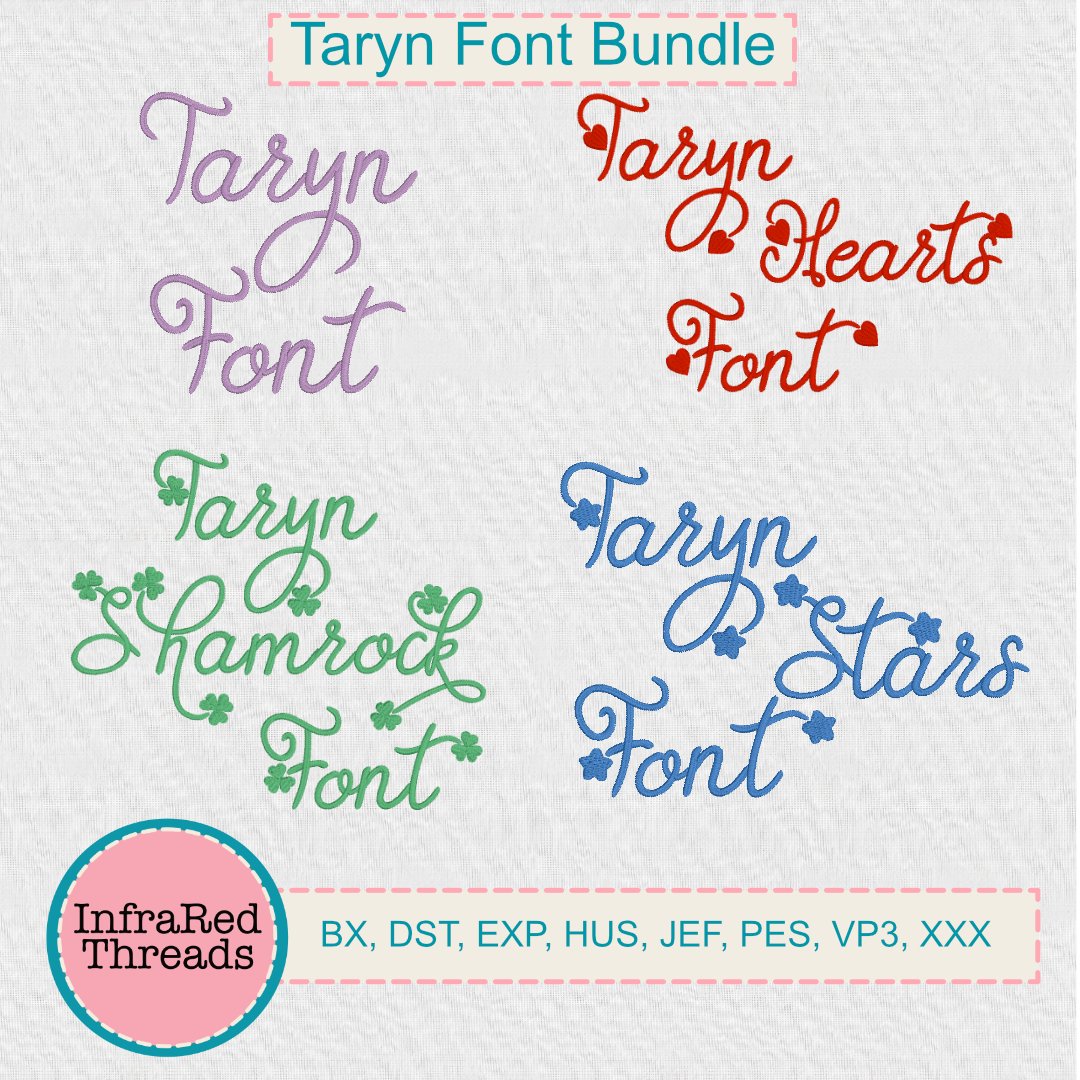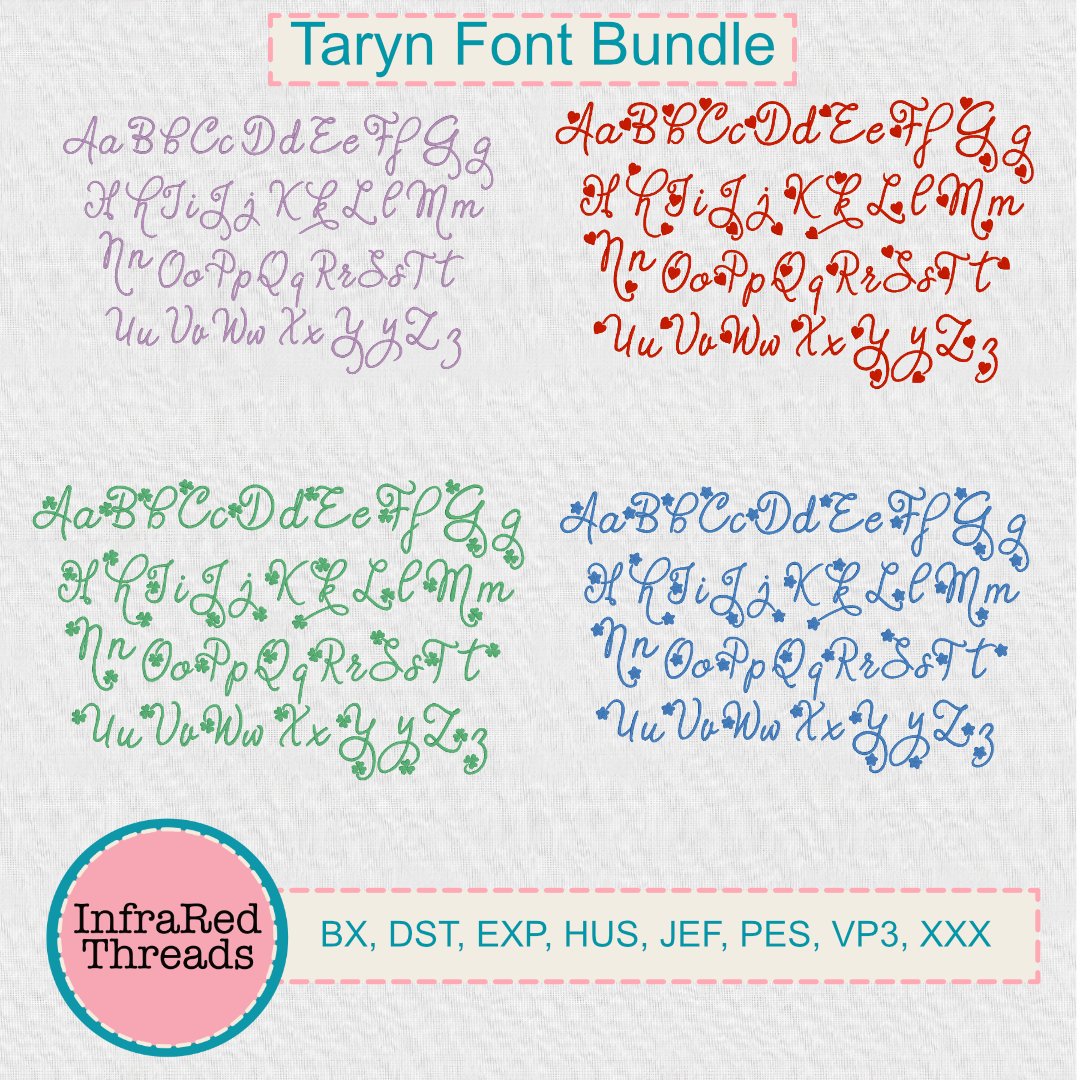
Taryn Embroidery Font Bundle – 4 Styles: Basic, Shamrocks, Hearts, Stars – 5 Sizes Included
Add playful charm and versatility to your embroidery projects with the Taryn Font Bundle. This multi-style embroidery font includes four themed versions—Basic, Shamrocks, Hearts, and Stars—making it ideal for a wide variety of seasonal, holiday, and everyday designs. Whether you’re creating festive St. Patrick’s Day gear, Valentine’s gifts, patriotic accents, or simple personalized items, this font bundle delivers consistent, polished results.